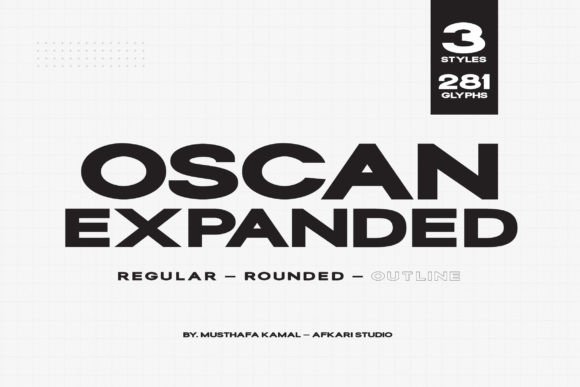
Introducing Oscan Expanded Font, a typographic masterpiece designed to turn your creative endeavors into mesmerizing journeys. This sans serif font exudes a harmonious blend of thin and thick, balanced and varied, meticulously designed to elevate every project you embark upon. With its eye-catching appeal, Oscan Expanded is not just a font; it's an artistic testament to the power of expression.
Express your authentic voice with Oscan Expanded and watch as your words dance and glisten, captivating the hearts and minds of your audience. Create captivating designs, weave mesmerizing tales, and craft a visual language that speaks to the soul. The creative possibilities are truly endless.
Step into the realm of Oscan Expanded and let your imagination take flight. Design striking posters, craft unforgettable social media graphics, or inspire action with unique web design. Oscan Expanded's versatile nature lends itself to a myriad of creative pursuits, ensuring your messages resonate with the visual voice they deserve.
In the realm of logotypes, Oscan Expanded reigns supreme. Its bold and commanding presence exudes professionalism, while its inherent charm and flexibility invite creativity and individuality. Sculpt a visual identity that speaks volumes, crafting a logo that will live rent-free in the minds and hearts of your audience.
With Oscan Expanded, the boundaries of your visual expression dissolve, and your words become a living, breathing testament to your artistry. Create social media posts that pop, with every character exudes boldness and style. Craft presentations that grab attention, with words that leap off the screen and dance before the eyes. Design business cards that leave a lasting impression, with a visual identity that commands remembrance.
Embrace the transformative power of Oscan Expanded and witness your creative potential explode. This transcendent font has the power to transform your visual voice, imbuing your every word with the vibrance and allure it deserves.